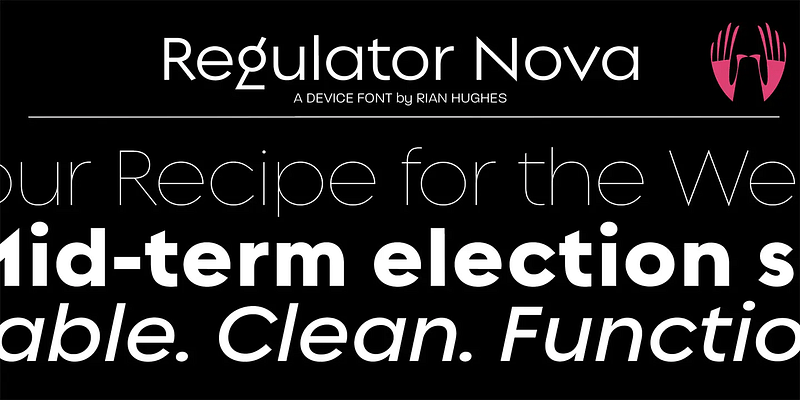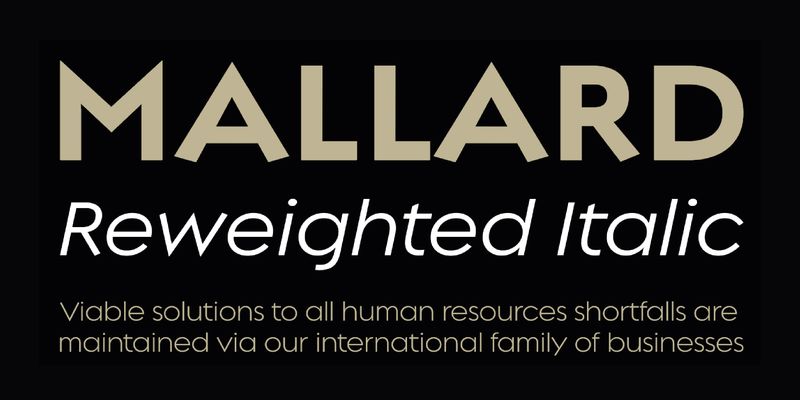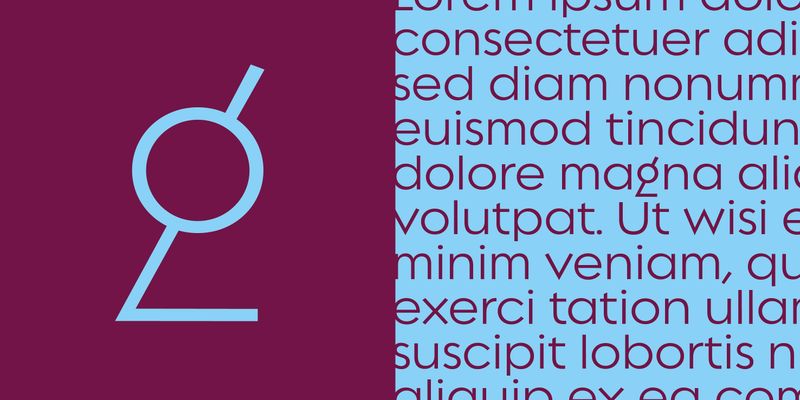
A versatile family with proportions that echo early sans such as Gill or Futura. A large lower-case x-height makes it very readable at text sizes. An alternative (though less unusual) “g” is an OpenType option.
Type, design and imagery by English illustrator and typographer Rian Hughes.